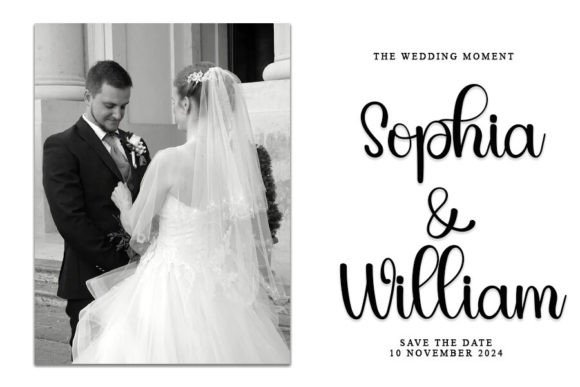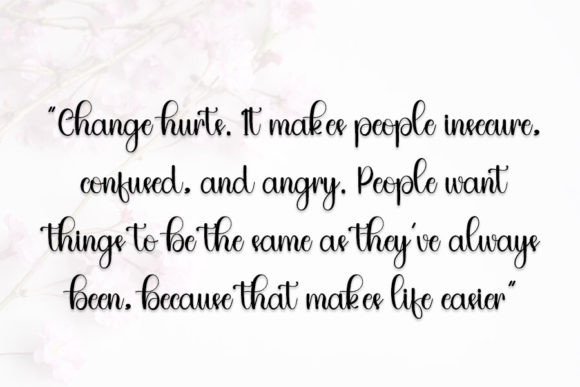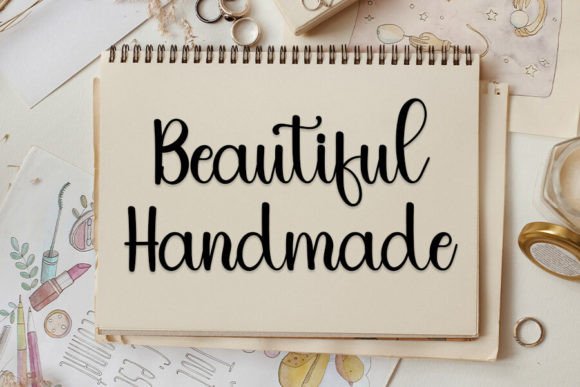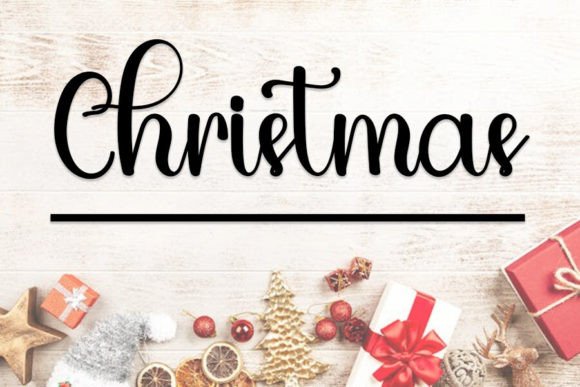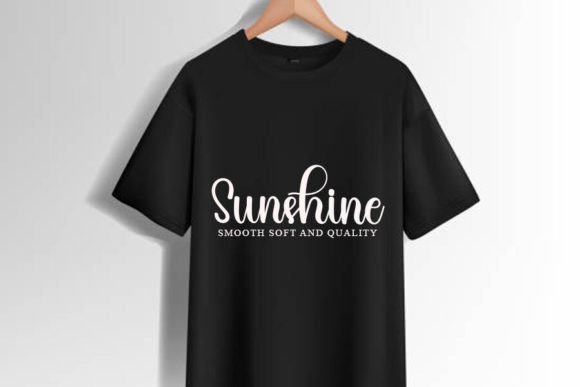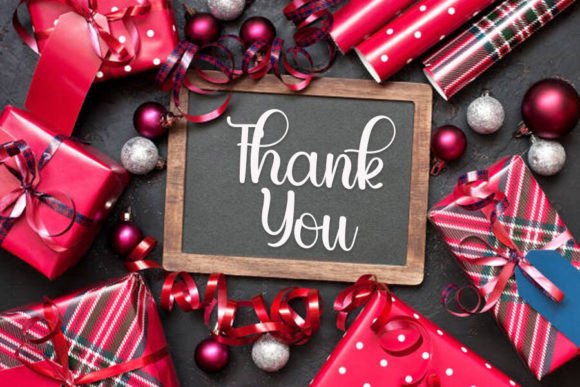
Coffee Break Font: The Perfect Blend of Warmth and Friendliness
Are you looking for a font that can add a personal touch to your designs? Look no further than the Coffee Break Font. This casual handwritten font is designed to exude warmth and friendliness, making it perfect for personal projects, invitations, and social media graphics.
The Characteristics of Coffee Break Font
Coffee Break Font is a unique and charming font that boasts rounded, playful strokes. These strokes give the font a relaxed and approachable feel, making it ideal for designs that require a personal touch. The font’s hand-drawn aesthetic adds a delightful, whimsical touch to any design, making it perfect for crafters and designers who want to create something truly special.
Uses of Coffee Break Font
Coffee Break Font is a versatile font that can be used in a variety of designs. Here are some of the most popular uses of this font:
- Personal Projects: Whether you’re creating a scrapbook, a photo album, or a personal blog, Coffee Break Font is the perfect choice. Its casual and friendly feel makes it ideal for sharing your personal stories and experiences.
- Invitations: If you’re planning a party, a wedding, or any other special event, Coffee Break Font is the perfect choice for your invitations. Its playful and whimsical touch will set the tone for a fun and memorable event.
- Social Media Graphics: If you’re a social media influencer or a business owner, Coffee Break Font can add a personal touch to your graphics. Use it to create engaging and eye-catching posts that will attract your audience’s attention.
Benefits of Using Coffee Break Font
There are several benefits to using Coffee Break Font in your designs. Here are some of the most significant advantages:
- Unique and Eye-Catching: Coffee Break Font is a unique and eye-catching font that will make your designs stand out from the crowd. Its playful and whimsical touch will attract your audience’s attention and make them remember your brand or personal project.
- Easy to Read: Despite its playful and casual feel, Coffee Break Font is easy to read and understand. This makes it perfect for designs that require a personal touch but still need to be clear and concise.
- Versatile: Coffee Break Font is a versatile font that can be used in a variety of designs. Whether you’re creating a personal project, an invitation, or a social media graphic, this font will fit right in.
Tips for Using Coffee Break Font
Here are some tips for using Coffee Break Font in your designs:
- Pair it with Other Fonts: Coffee Break Font can be paired with other fonts to create a unique and eye-catching combination. Try pairing it with a bold font for a striking contrast.
- Use it in Large Sizes: Coffee Break Font is perfect for large sizes, such as headings and titles. Use it to create a bold and eye-catching statement in your designs.
- Experiment with Colors: Coffee Break Font looks great in a variety of colors. Experiment with different colors to find the perfect match for your design.
Coffee Break Font is a unique and charming font that can add a personal touch to your designs. Its rounded, playful strokes give it a relaxed and approachable feel, making it perfect for personal projects, invitations, and social media graphics. With its versatility, ease of use, and eye-catching aesthetic, Coffee Break Font is a must-have for any designer or crafter looking to create something truly special.